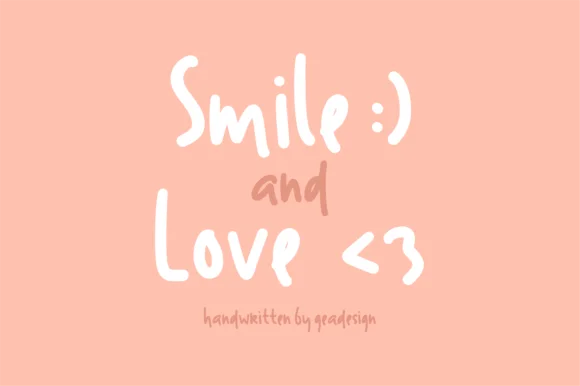
Smile And Love Font
Smile And Love Font is perfect for wedding invitations, Valentine's Day cards, romantic logos, love-themed branding projects, greeting cards, social media posts, quotes and typography art, scrapbooking, gift tags, romantic product packaging, beauty salon branding, and any design project that requires a cheerful and affectionate touch.
What makes Smile And Love Font exciting is its playful and romantic character that instantly evokes feelings of joy and warmth. The font's whimsical letterforms create an inviting atmosphere, making it ideal for designs that aim to spread happiness and positive emotions. Its charming personality helps brands connect with audiences on an emotional level while maintaining excellent legibility.
The Smile And Love Font family typically includes uppercase and lowercase letters, numbers, punctuation marks, and decorative elements that enhance its romantic appeal.